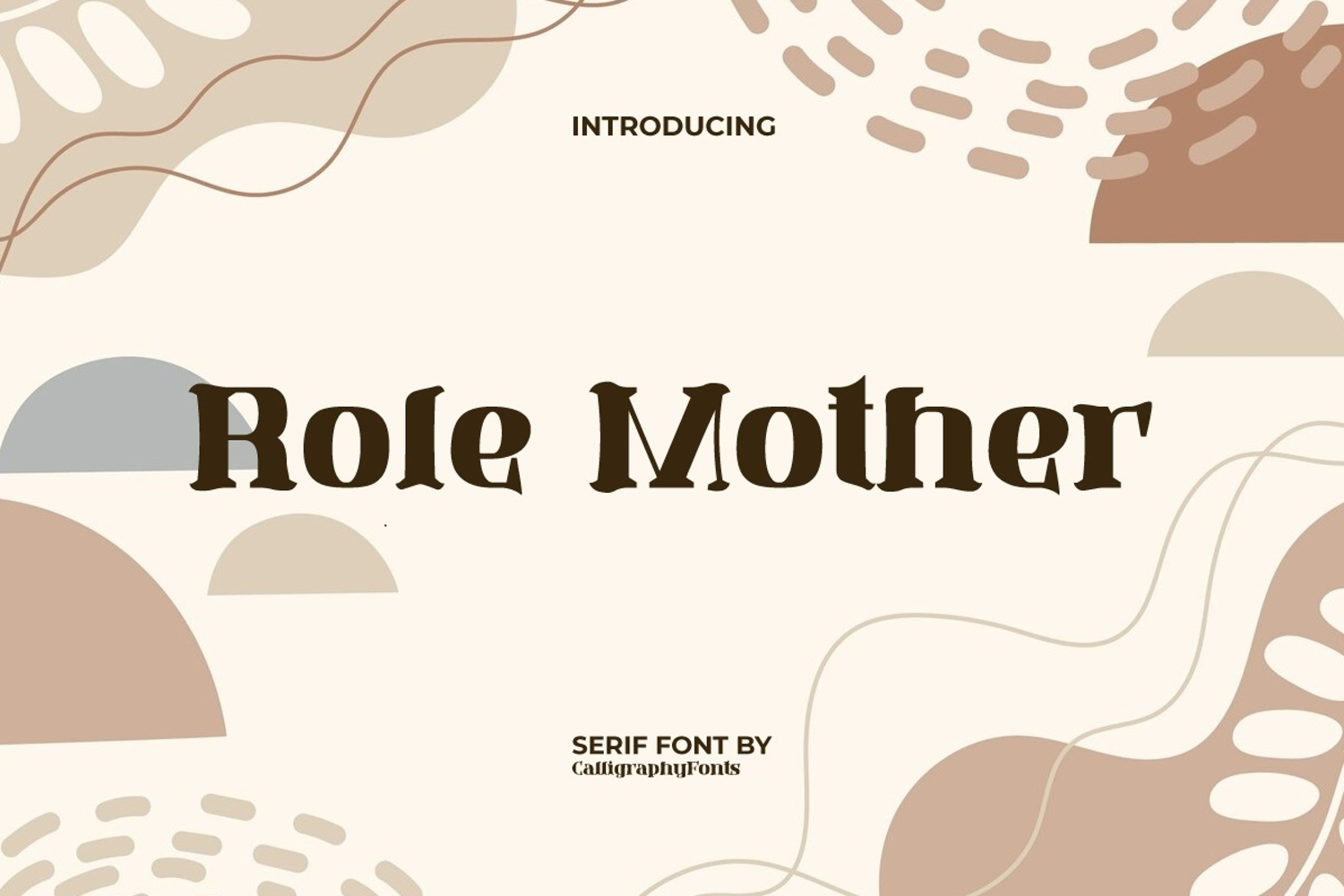
Role Mother Font
Role Mother Font is a bold elegant serif display font with a vintage feel that is designed in a modern way. This type of font is carefully crafted so that it is perfect for all your design needs. This type of font is very suitable for blogs, brochures, invitations, label, quote, social media feed, stationery, stickers, watermarks, websites, tags, and more.
Introducing Role Mother Display Font – a bold, stylish, and versatile typeface crafted to make your designs unforgettable. With its strong personality and modern aesthetic, this display font is the perfect choice for projects that demand attention and leave a lasting impression.
Role Mother Display Font combines sharp details with smooth curves, creating a balance between elegance and power. It’s designed to capture the eye instantly, making it ideal for logos, branding, posters, headlines, packaging, apparel, and digital marketing designs. Every letter carries confidence, ensuring that your message stands out no matter the medium.
Whether you’re a graphic designer, entrepreneur, or content creator, this font adapts beautifully to a variety of themes. From bold and edgy advertising campaigns to elegant invitations or lifestyle branding, Role Mother Display Font adds a unique touch of professionalism and creativity.
Its clean yet distinctive design makes it easy to pair with other typefaces, whether you choose a minimalist sans-serif or a classy script. This flexibility allows you to experiment and achieve striking results across print and digital platforms.
Built for both versatility and impact, Role Mother Display Font supports high-resolution projects, ensuring crisp results on posters, flyers, product packaging, and websites. It’s not just a font – it’s a creative tool to help you tell your story with style and authority.
Role Mother Display Font is an authentic vintage style serif that is made special with its rounded edges and charming curves. This font brings back those thick retro typography to the present era. You can use it for accessories and gifts, florist, graphic design, handicrafts, home furniture, photography, restaurant, salon, spa, printing, publishing, etc.